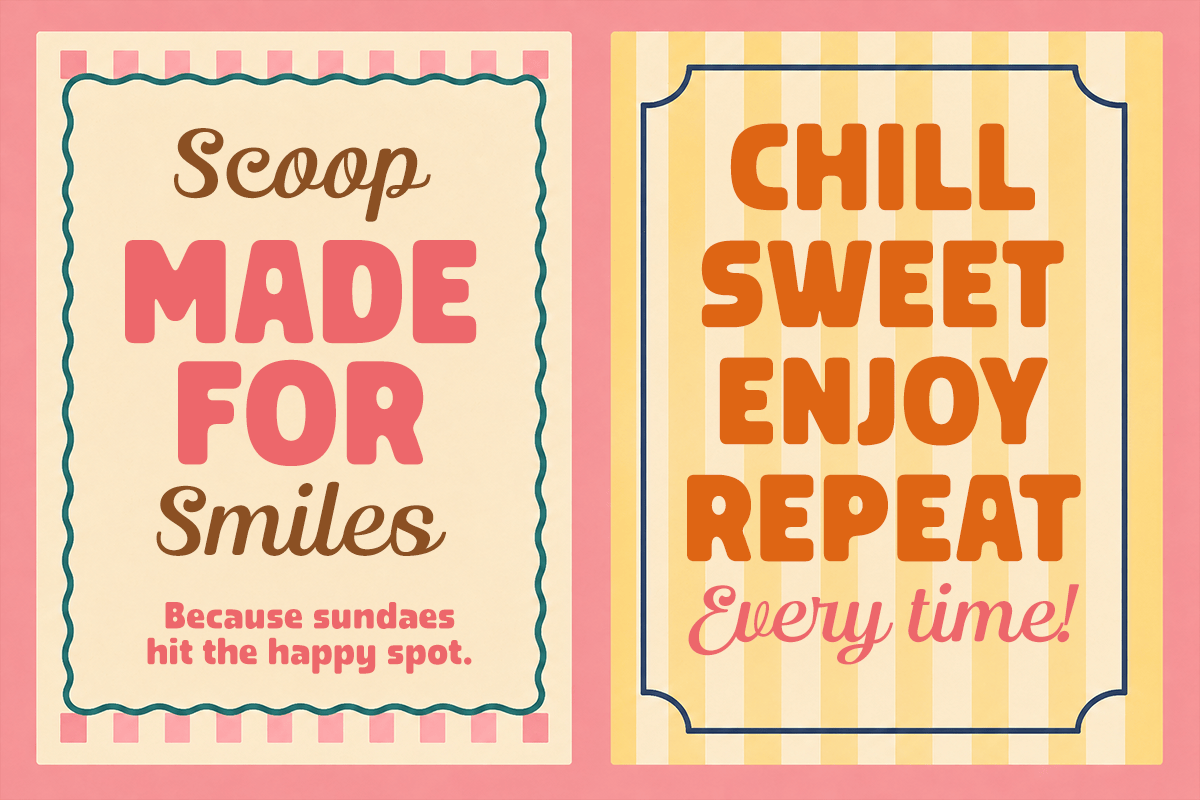
Caramel Sundae – Font Duo Bold Sans Serif & Script
Caramel Sundae is a fun and playful font duo that combines a bold sans serif with a charming script typeface. Designed with a sweet and cheerful personality, this combination gives your typography a deliciously eye-catching look.
Perfect for food branding, bakery, café, ice cream shops, dessert packaging, restaurant menus, posters, labels, social media graphics, and advertising. The bold sans serif creates strong and impactful headlines, while the script adds a warm, playful, and handcrafted touch.
Mix and match both styles to create expressive logos, memorable brand identities, packaging designs, promotional graphics, and eye-catching typography. Caramel Sundae is a perfect choice for designs that need a fun, friendly, colorful, and irresistibly sweet visual character.
- Bold Sans Serif
- Sweet Script Font